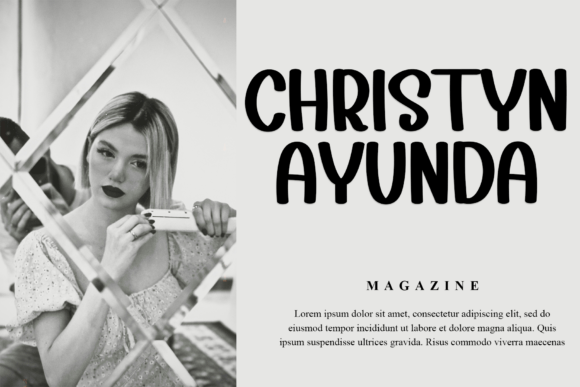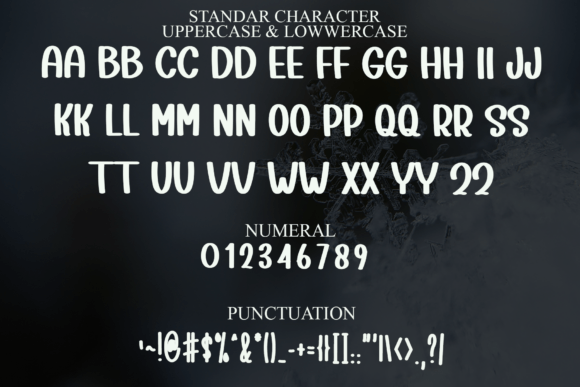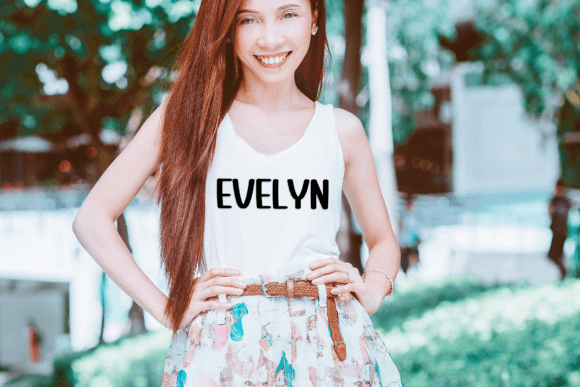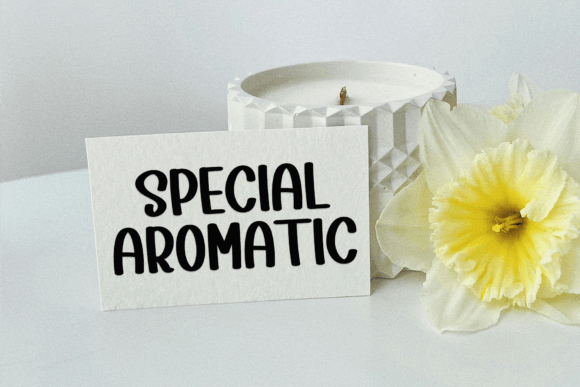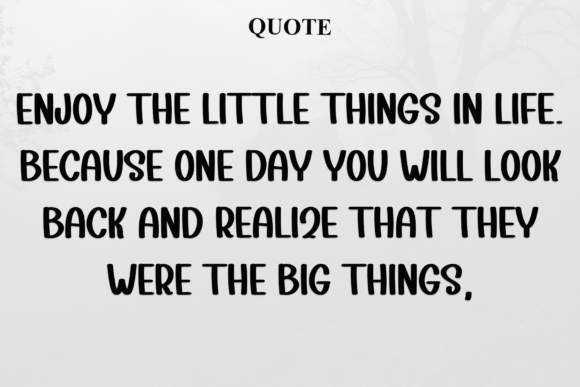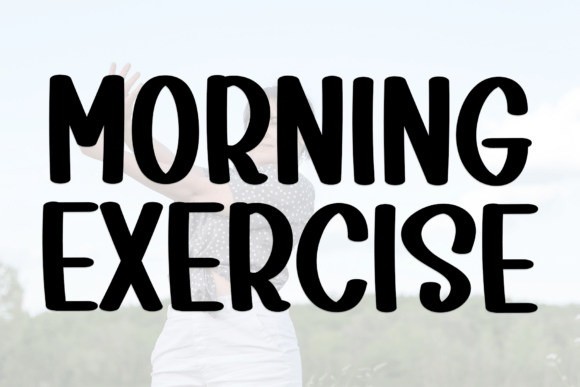
Introduction to Mooving Boldyng Font
As designers, we’ve all been there – staring at a blank canvas, trying to come up with the perfect font to match our creative vision. The struggle is real, but what if you stumbled upon a font that makes your design process a whole lot easier? Enter Mooving Boldyng Font, a free download that’s about to become your new go-to design resource.
With its high-quality, transparent background and charming, hand-drawn aesthetic, Mooving Boldyng Font is the perfect addition to any creative project. Whether you’re designing social media graphics, invitations, or personal projects, this font’s warm and friendly vibe is sure to make your design stand out.
As a designer, having access to a versatile and reliable font like Mooving Boldyng Font can be a game-changer. It’s a valuable resource that can help you achieve your design goals and take your creative projects to the next level.
Key Features of Mooving Boldyng Font
- Supports multiple languages and scripts for global design applications
- Designed with a bold and modern aesthetic, perfect for eye-catching designs
Honest Review: Mooving Boldyng Font
As a designer, I’m always on the lookout for high-quality fonts to elevate my creative projects. The Mooving Boldyng Font is one such discovery that caught my attention. Upon closer inspection, I was pleased to find that it offers a unique and bold style that’s perfect for making a statement.
- ✨ Unique and bold design that’s perfect for creative projects
- ✨ High-quality design that looks great on both light and dark backgrounds
- ⚠️ The font may not be suitable for projects that require a more subtle or minimalist approach
Overall, I’m impressed with the Mooving Boldyng Font and would recommend it to designers who are looking for a bold and eye-catching font for their creative projects. With its high-quality design and free download option, it’s definitely a valuable resource to have in your design toolkit.
How to Use Mooving Boldyng Font
Tips for Getting the Most Out of the Mooving Boldyng Font
To get the most out of the Mooving Boldyng Font, experiment with different font sizes, colors, and combinations. This will help you create unique and eye-catching designs.
The Mooving Boldyng Font is ideal for:
- Creating attention-grabbing headings and titles
- Designing social media graphics and ads
- Adding a touch of elegance to presentations and documents
Playfair Display is an elegant and refined serif font perfect for use in high-end creative projects where a touch of luxury is required.
Use Playfair Display for titles, headings, and body text where you want to convey a sense of sophistication and elegance.
Compared to Mooving Boldyng Font, Playfair Display has a more refined and sophisticated feel, making it ideal for use in print and digital design where a high-quality font is required.
Great Vibes is a beautiful and elegant script font perfect for use in creative projects where a touch of personality is required.